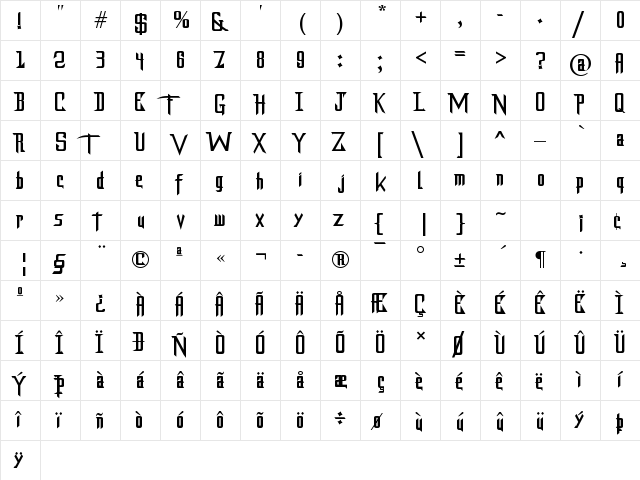
DragonForce Regular
Design Context for DragonForce Typeface
DragonForce has the bold swagger of sports branding: strong, assertive letterforms designed to dominate headlines and jerseys alike.
A natural choice for gym brands, fantasy sports, jersey lettering, and action-driven headlines.
Font Pairing: Use alongside a condensed or geometric sans for supporting copy — keep the pairing bold, functional, and free of ornament.
Pro Tip: Use DragonForce in all-caps headlines where its athletic energy can fully express itself. Pair with a solid, simple sans for supporting text.